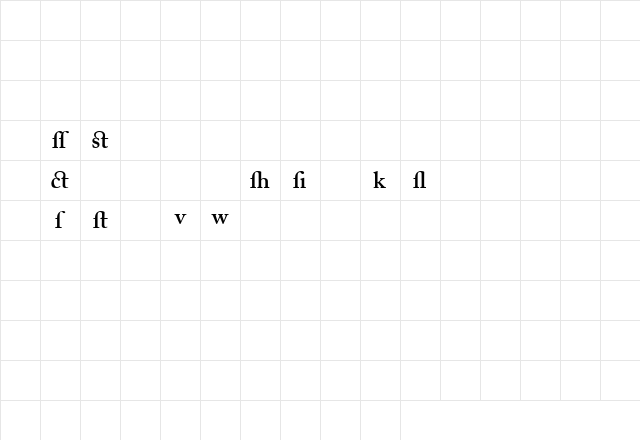
Caslon Alternate SSi Semi Bold
Style: Semi Bold
Caslon Alternate SSi Family
Caslon Alternate SSi Semi Bold
Complete Caslon Alternate SSi Semi Bold glyph index. Displaying only characters natively supported by Caslon Alternate SSi Semi Bold font.
Design Context for Caslon Alternate SSi
Caslon Alternate SSi is a composed and adaptable typeface that performs quietly and consistently across a wide range of design contexts. Its bold stroke weight gives it real presence on the page.